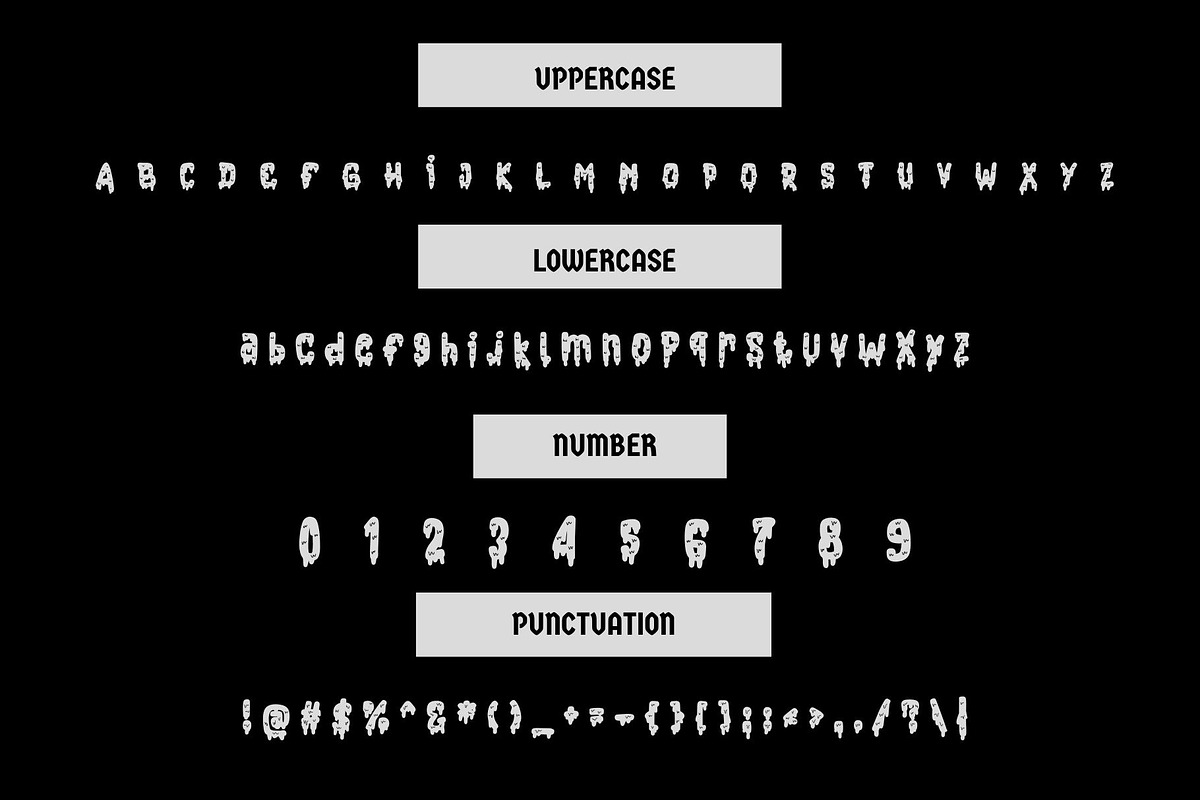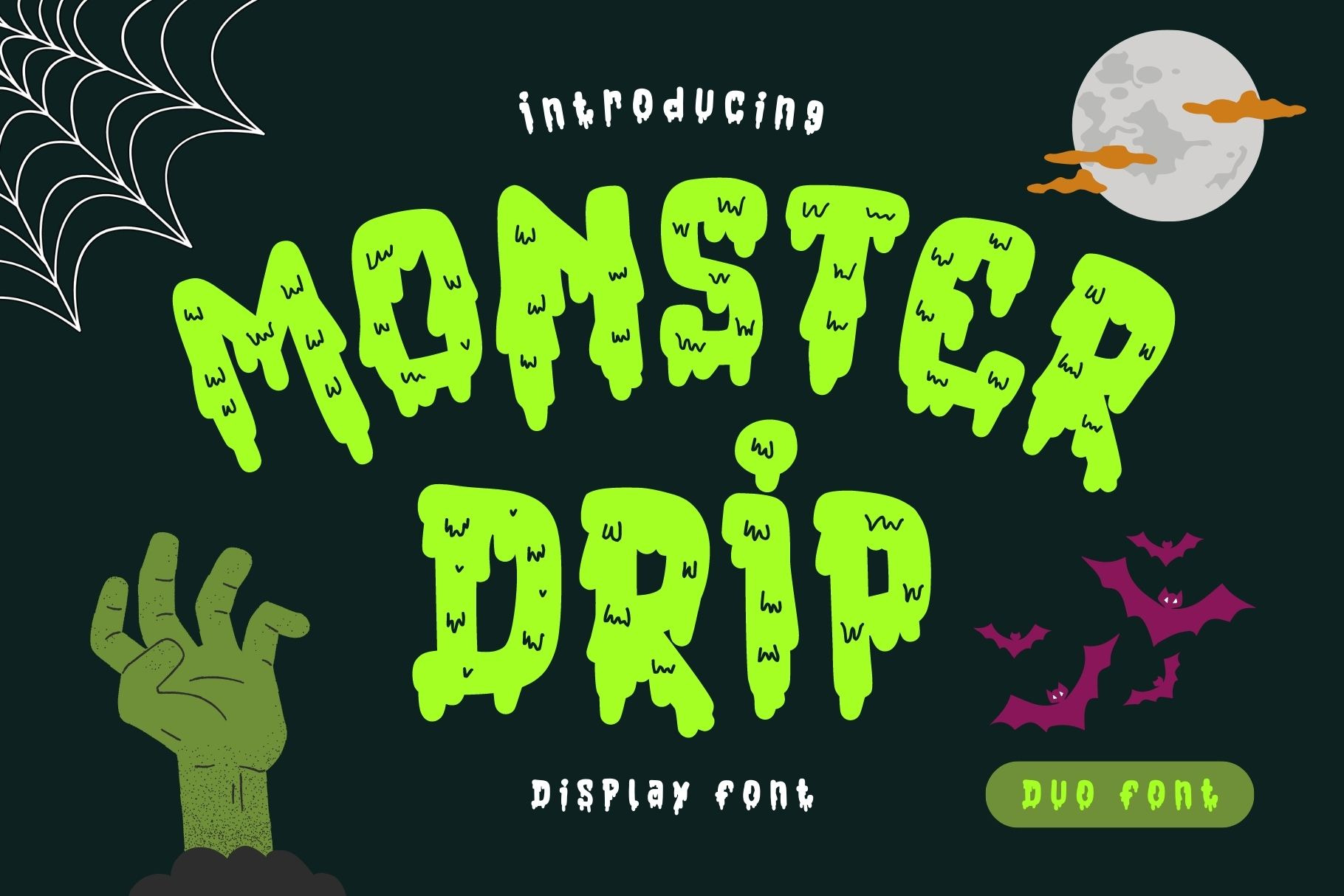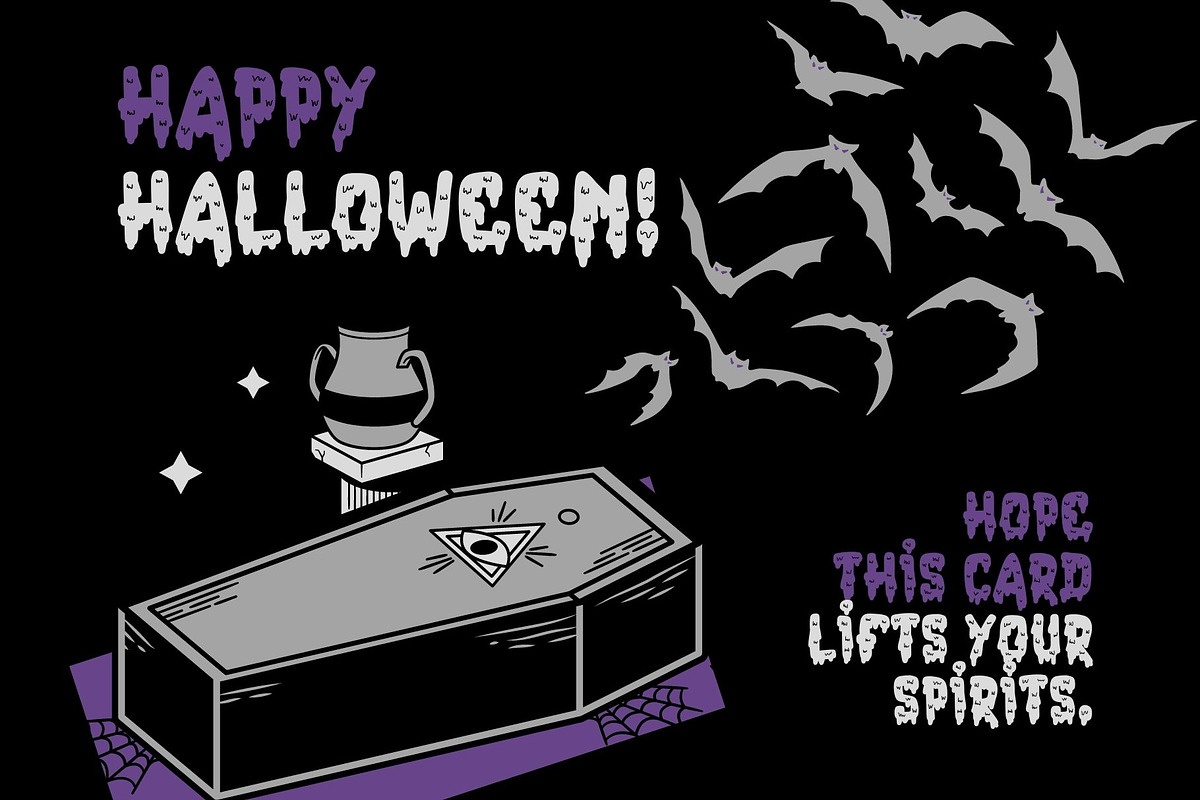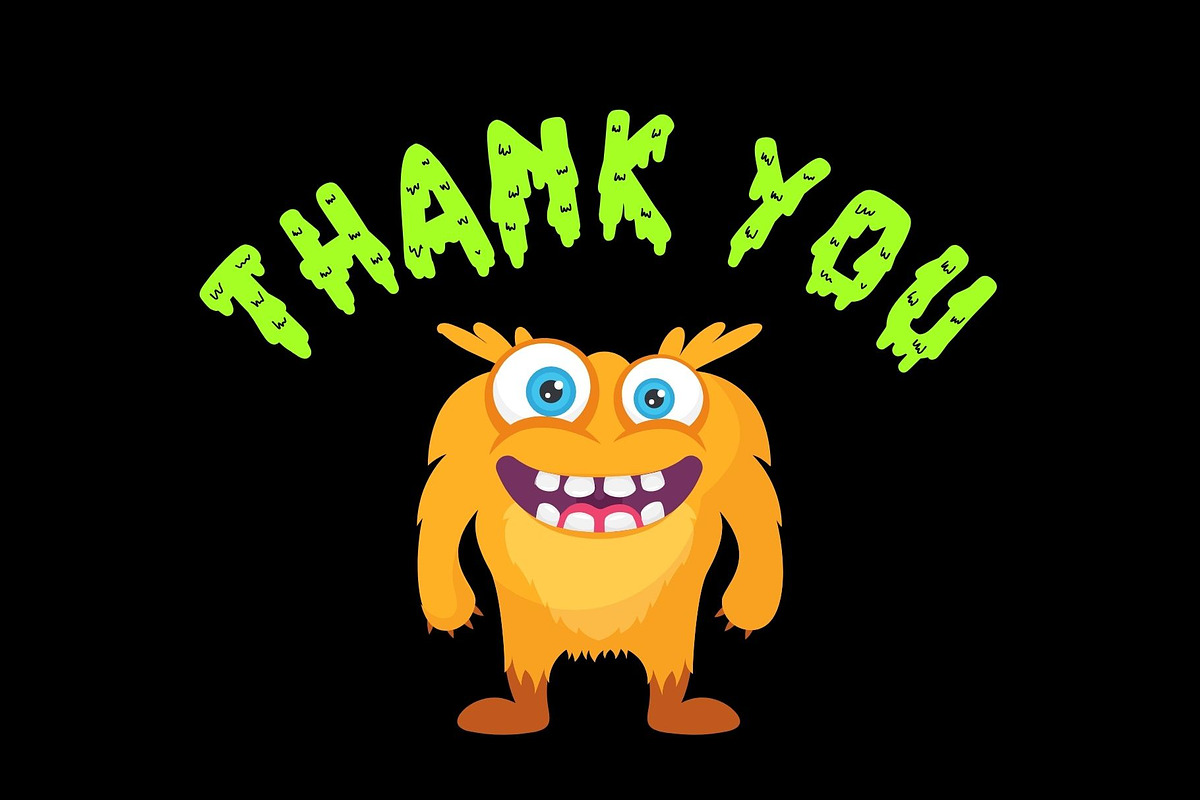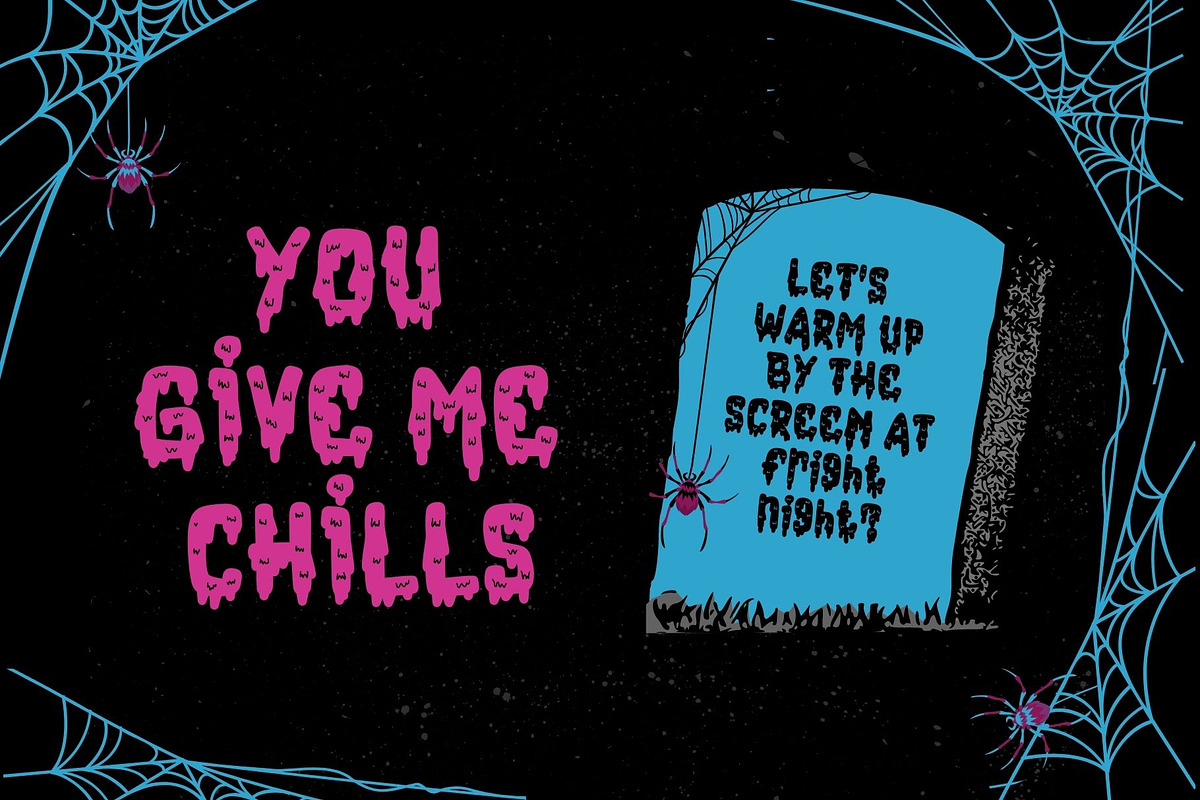
Monster Drip is a cute display font
Monster Drip is a cute display font. It embodies playfulness and authenticity and is the perfect choice for all your favorite projects, or even for blog posts, logos, branding, ads, invitations, greeting cards, planners, photo albums, decorations, and much more. Add it to any of your designs, and enjoy the results!